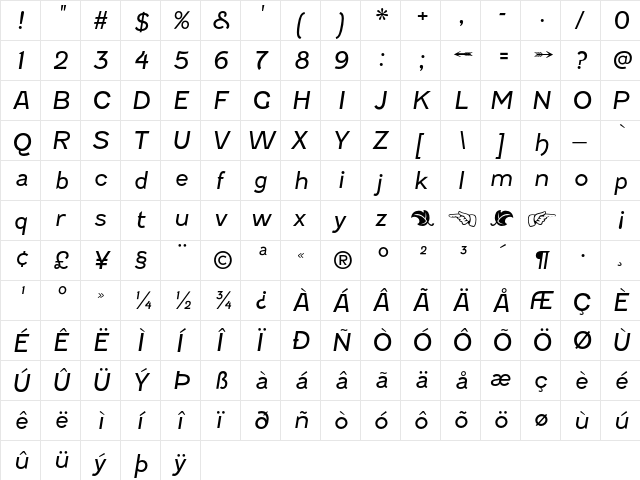
Fenwick Light Italic
Design Context for Fenwick Light Typeface
Fenwick Light is a composed and adaptable typeface that performs quietly and consistently across a wide range of design contexts. The dynamic lean of this cut emphasises speed and emphasis in any layout. The delicate stroke weight brings airiness and refinement to layouts.